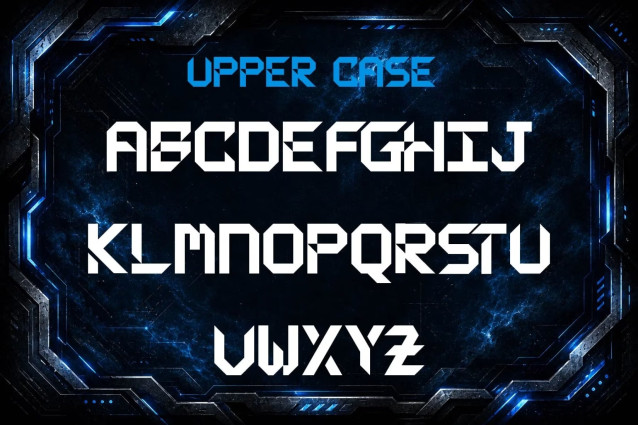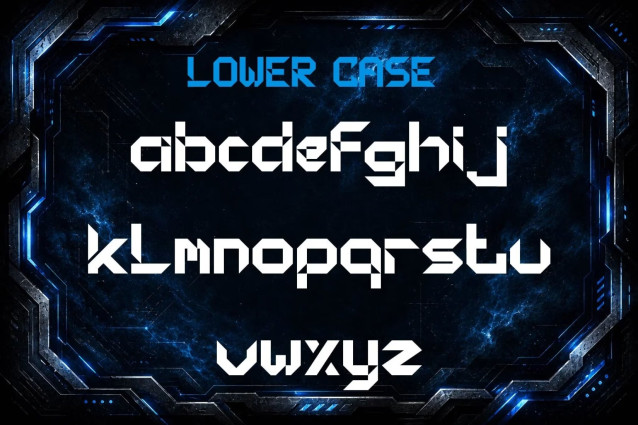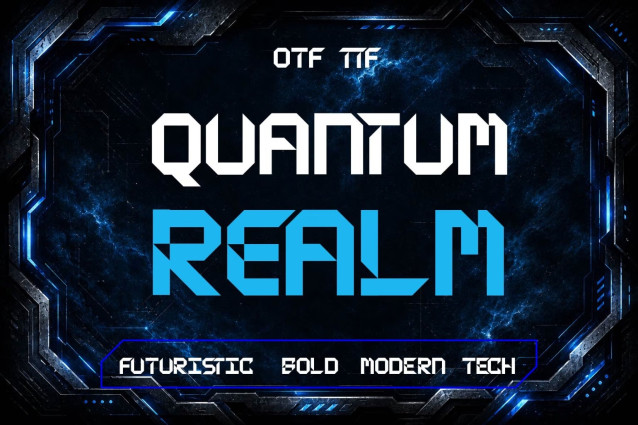
QuantumRealm – Futuristic Gaming Font
QuantumRealm is a modern sci-fi display typeface designed for gaming, technology, esports, cyberpunk, and futuristic branding. With sharp geometric forms and a high-tech aesthetic, this font is perfect for creating eye-catching logos, posters, thumbnails, merchandise, and digital artwork.
Quantum Realm is a futuristic bold display font inspired by sci-fi technology and cyber aesthetics. Its sharp geometric shapes and angular cuts make it ideal for gaming titles, tech branding, esports, posters, logos, UI designs, packaging, and other modern creative projects.
Whether you’re building a gaming brand, designing esports content, or creating futuristic marketing materials, QuantumRealm delivers a powerful visual impact.
✔ Futuristic display font
✔ Sci-fi inspired lettering
✔ Gaming and esports typography
✔ Modern technology aesthetic
✔ Uppercase characters
✔ Numbers included
✔ Punctuation included